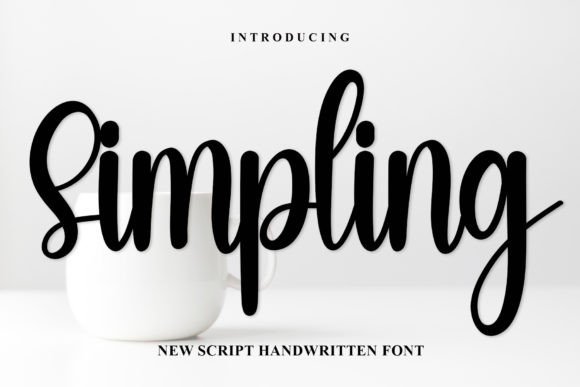
Behold, Simpling Font - a breathtaking script font family that captures the essence of love, intimacy, and heartfelt connections. This modern masterpiece, meticulously crafted by NYA Letter, embodies the timeless charm of classic calligraphy, reimagined for the digital age.
With its graceful curves, elegant ligatures, and undeniable charm, Simpling Font is the perfect choice for expressing your deepest emotions and heartfelt messages. Its balanced strokes, neither too thin nor too thick, create a visual harmony that draws the eye and captivates the heart.
Experience the versatility of Simpling Font, a font that seamlessly adapts to a multitude of creative endeavors. From heartfelt love letters and romantic invitations to enchanting wedding vows and heartfelt anniversary cards, Simpling Font transforms your words into visual poetry.
Whether you're a passionate designer, a creative entrepreneur, or a devoted letter writer, Simpling Font is your trusted companion in conveying your emotions with elegance and authenticity. Its flawless form and effortless flow will elevate your projects, adding a touch of sophistication and heartfelt charm.
Unleash the power of Simpling Font and witness the transformation of your creative visions into captivating realities. Let your words dance across the page, carried by the graceful strokes of Simpling Font, leaving an everlasting impression on the hearts of your readers.
Embrace the beauty of Simpling Font, a font that speaks to the soul and ignites the imagination. Allow its timeless charm to enhance your projects, capturing the essence of love, intimacy, and heartfelt connections.